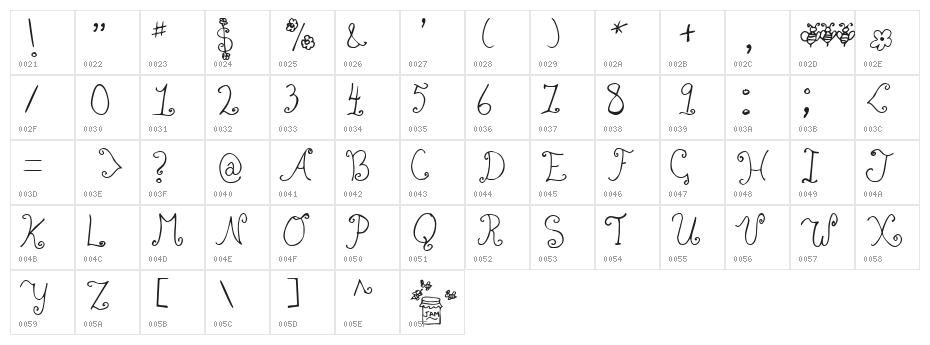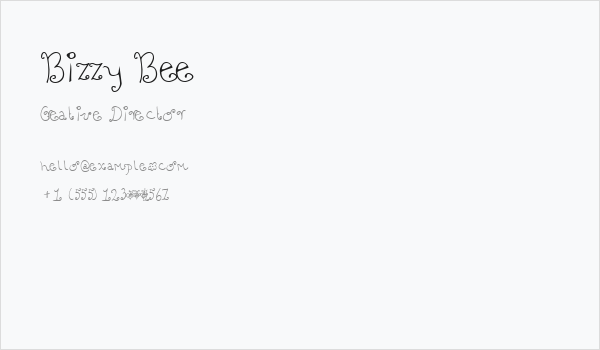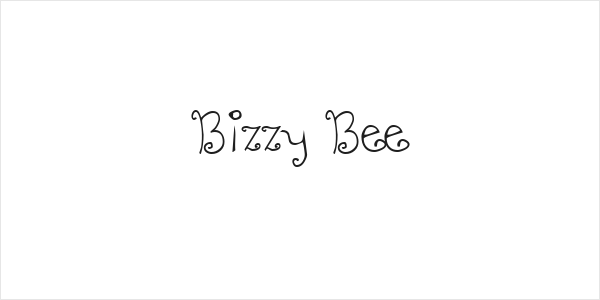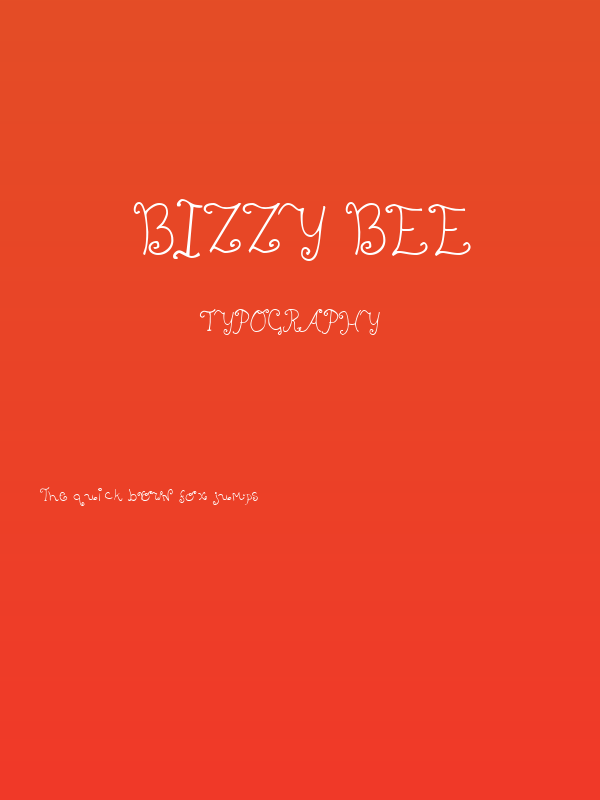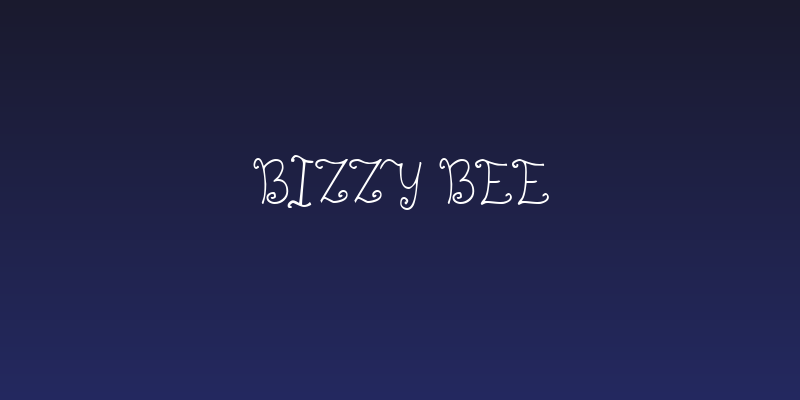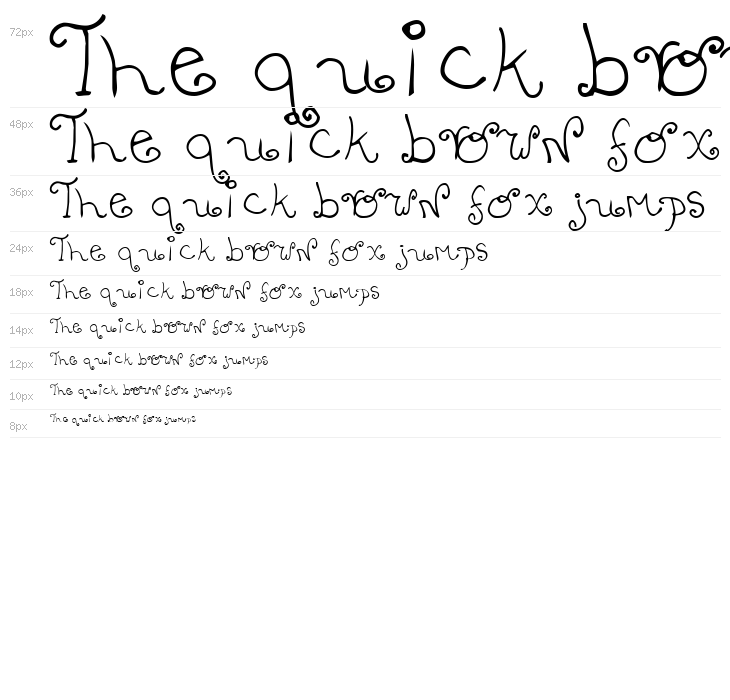
Bizzy Bee Font
Bizzy Bee Description
This whimsical font features playful, curly serifs and a hand-drawn aesthetic that gives it a lively and energetic feel. The uppercase letters are characterized by their swirling, decorative elements, while the lowercase letters maintain a consistent, flowing style. Numbers and special characters are equally adorned with curls and loops, adding to the font's charm. The overall design is reminiscent of a fun, child-like handwriting, making it ideal for projects that require a touch of creativity and joy. The font's unique style is perfect for capturing attention and conveying a sense of fun and playfulness.